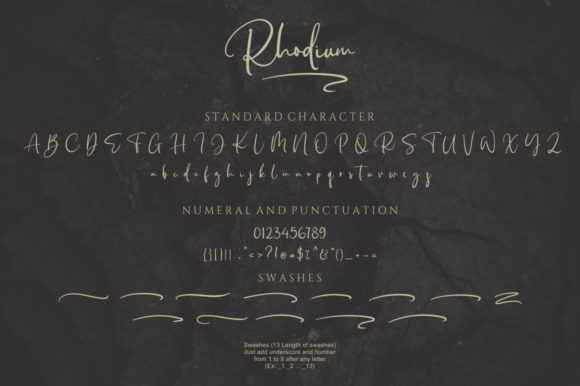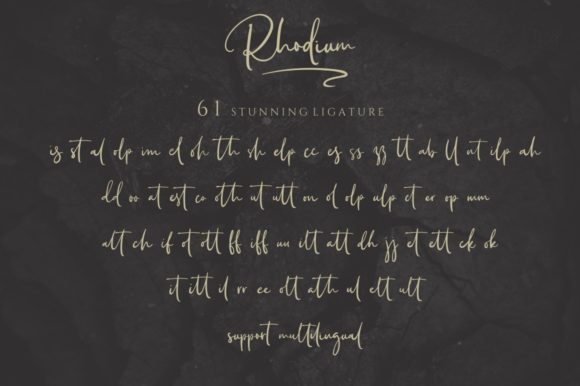
About Rhodium Font
Rhodium is a lovely and delicate script font that exudes elegance and class. This font was particularly crafted for those who need a beautiful and refreshing look to their designs.